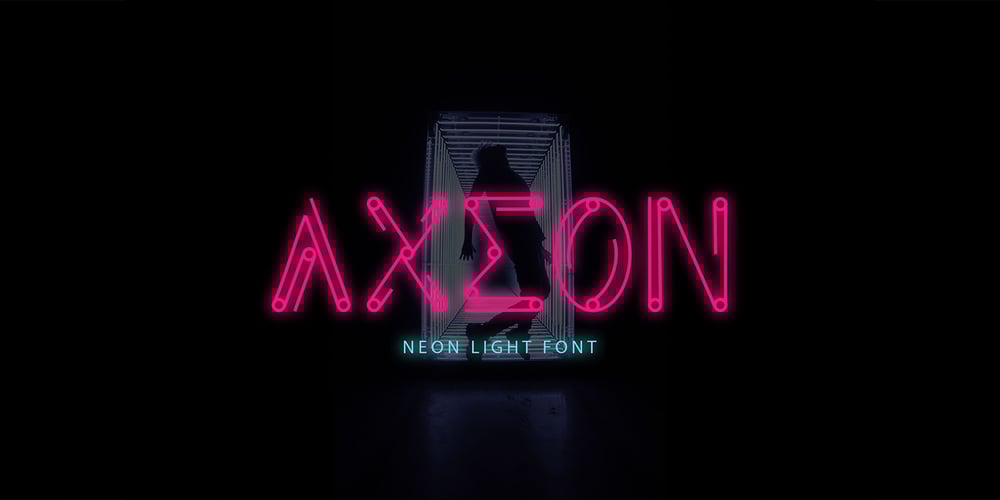
Axeon Font Family was designed by Yahdi Kumala and published by Rometheme. Axeon contains 1 styles and family package options. Axeon is a modern futuristic typeface with elegant in every single letter. This font looks modern, sci-fi, futuristic, future, readable, stylish, catchy and easy to use.Axeon Font is the best choice for your professional design projects, including: logo, poster design, t-shirt, headline, flyer, cd cover album, quotes, business card, branding, magazines, social media, advertisements, product designs, or something that need modern or futuristic looks.Highlight:- Easy instalation- Work on PC or Mac- PUA Encoded Support- Basic Latin A-Z and a-z- Numbers- Symbols- No special software is required, The fonts can be opened and used in Adobe Illustrator, Adobe Photoshop, Adobe InDesign, even work on Microsoft Word.